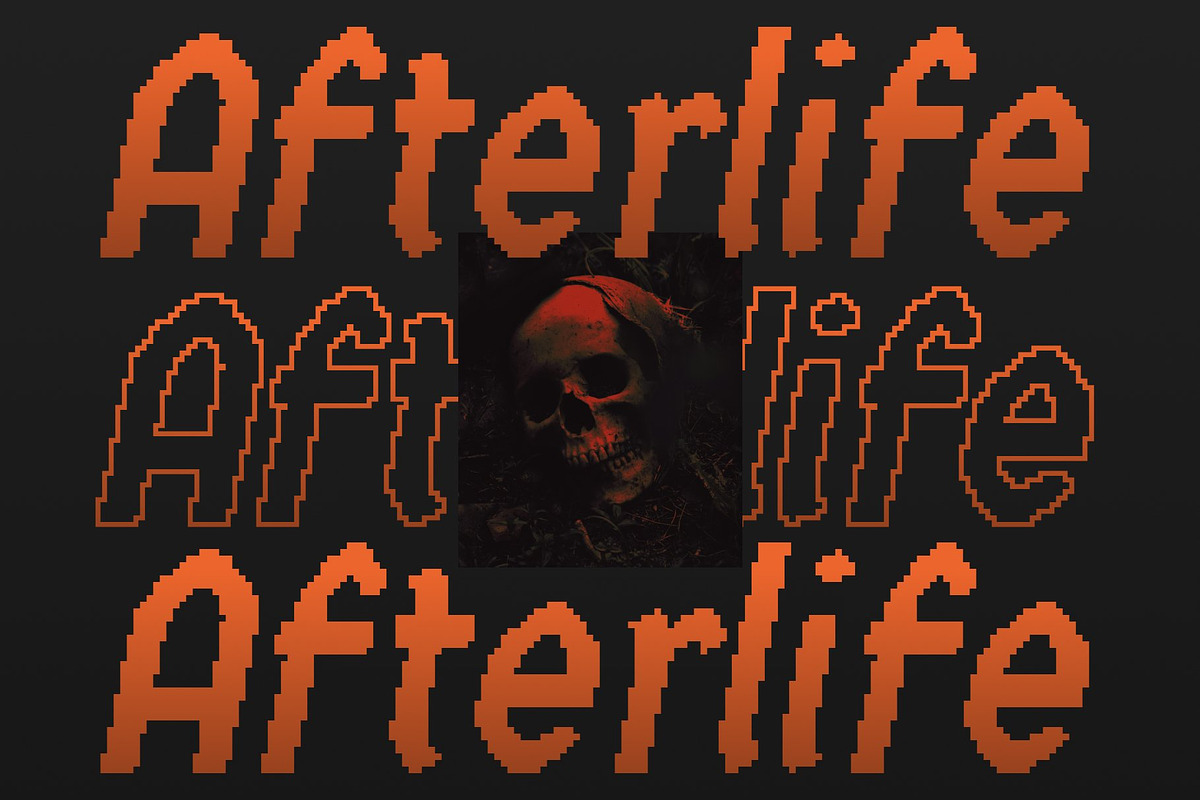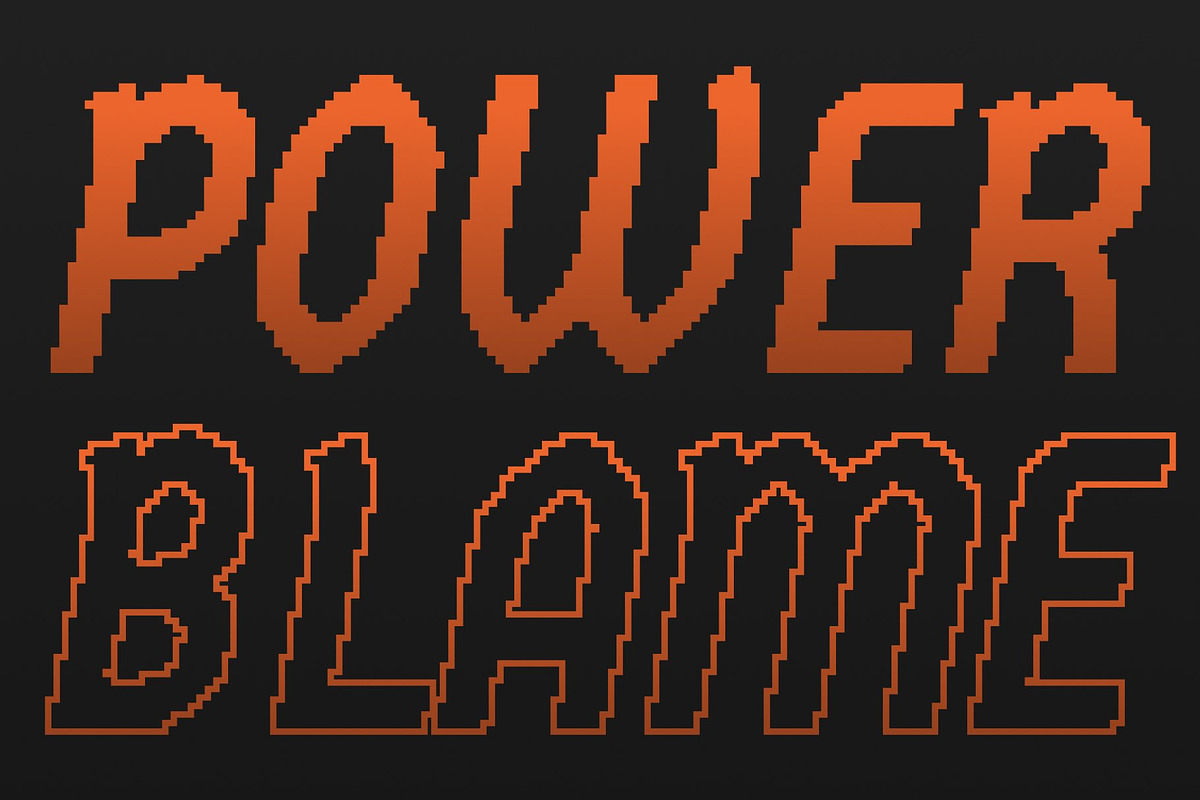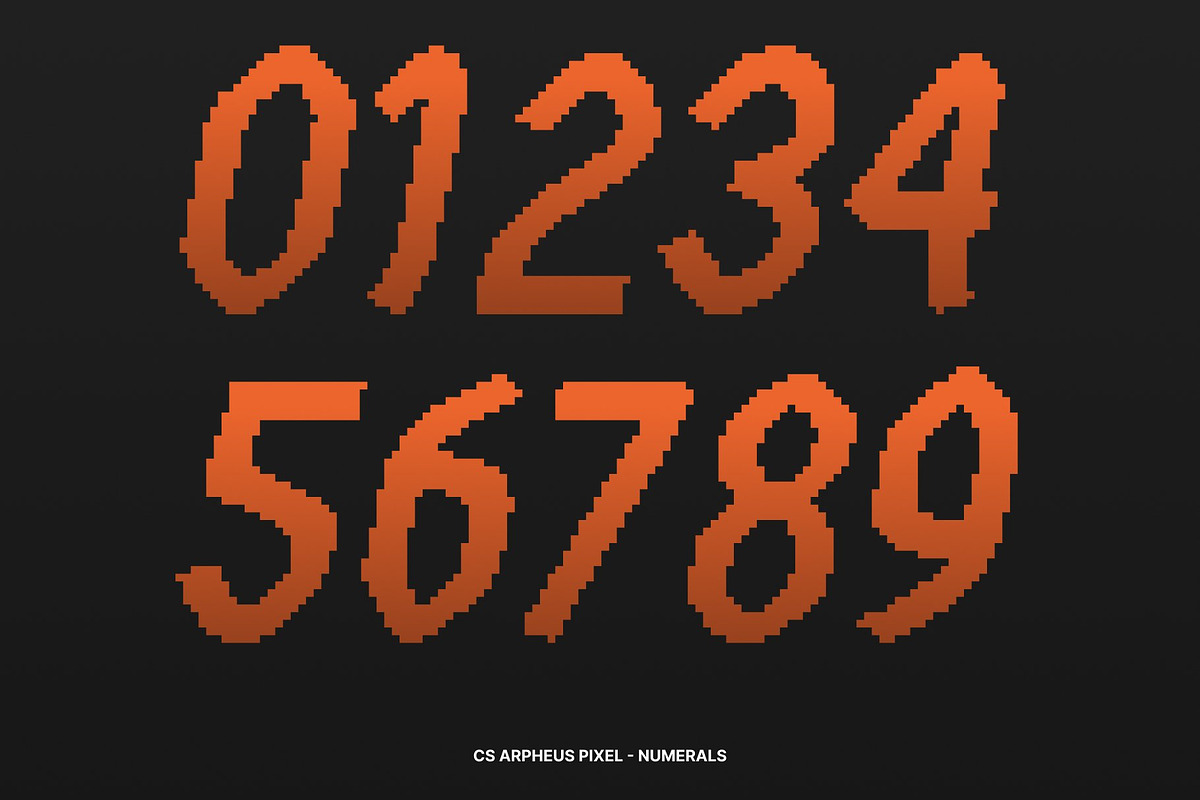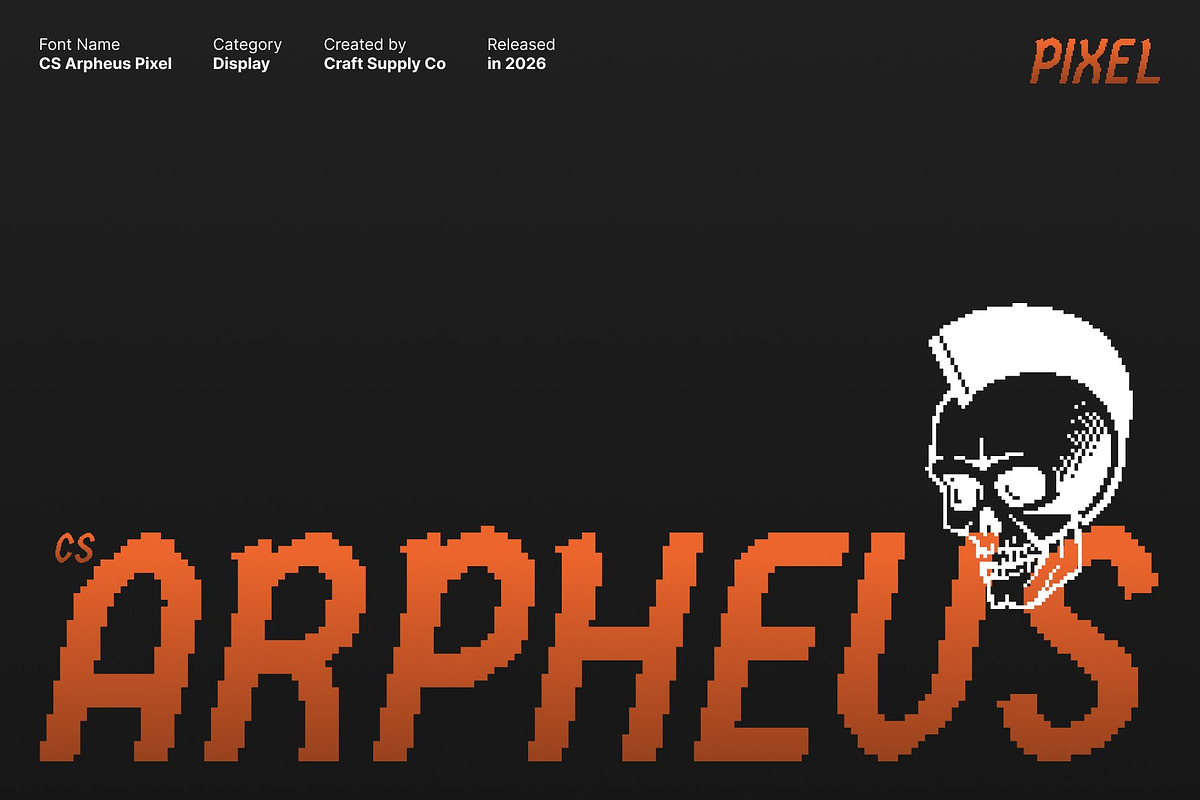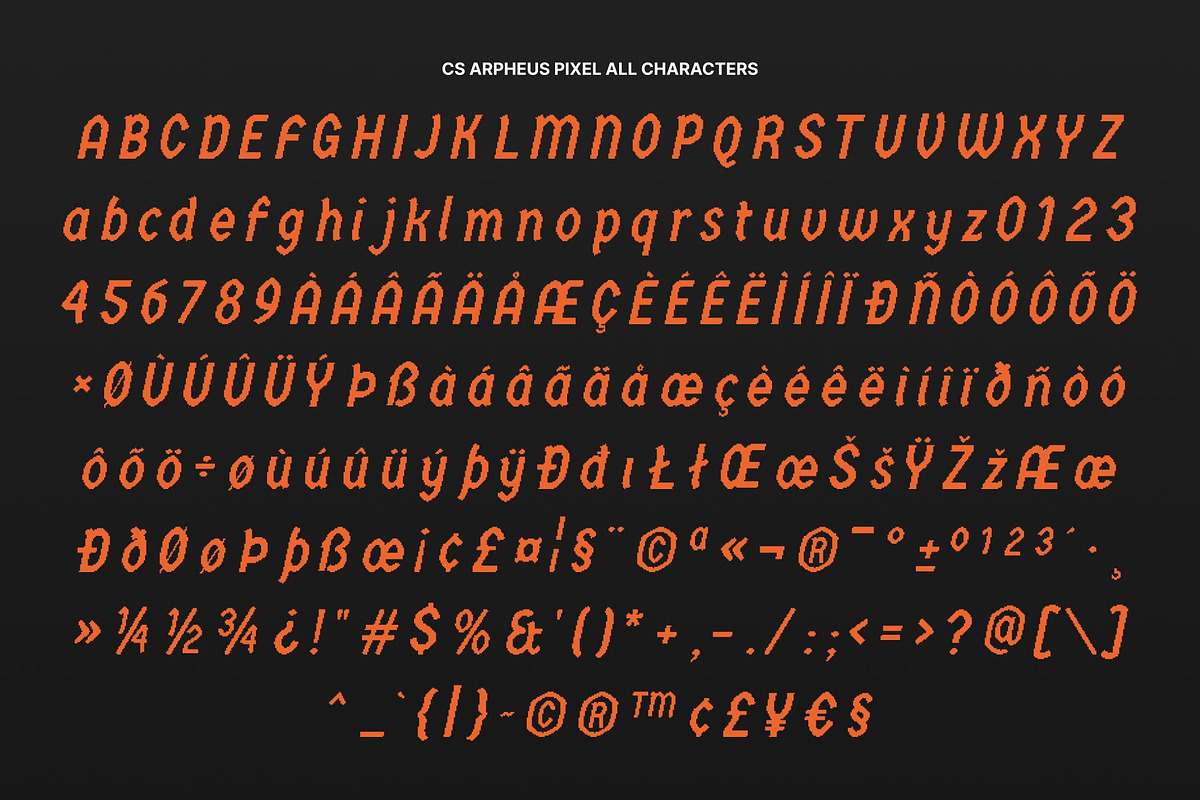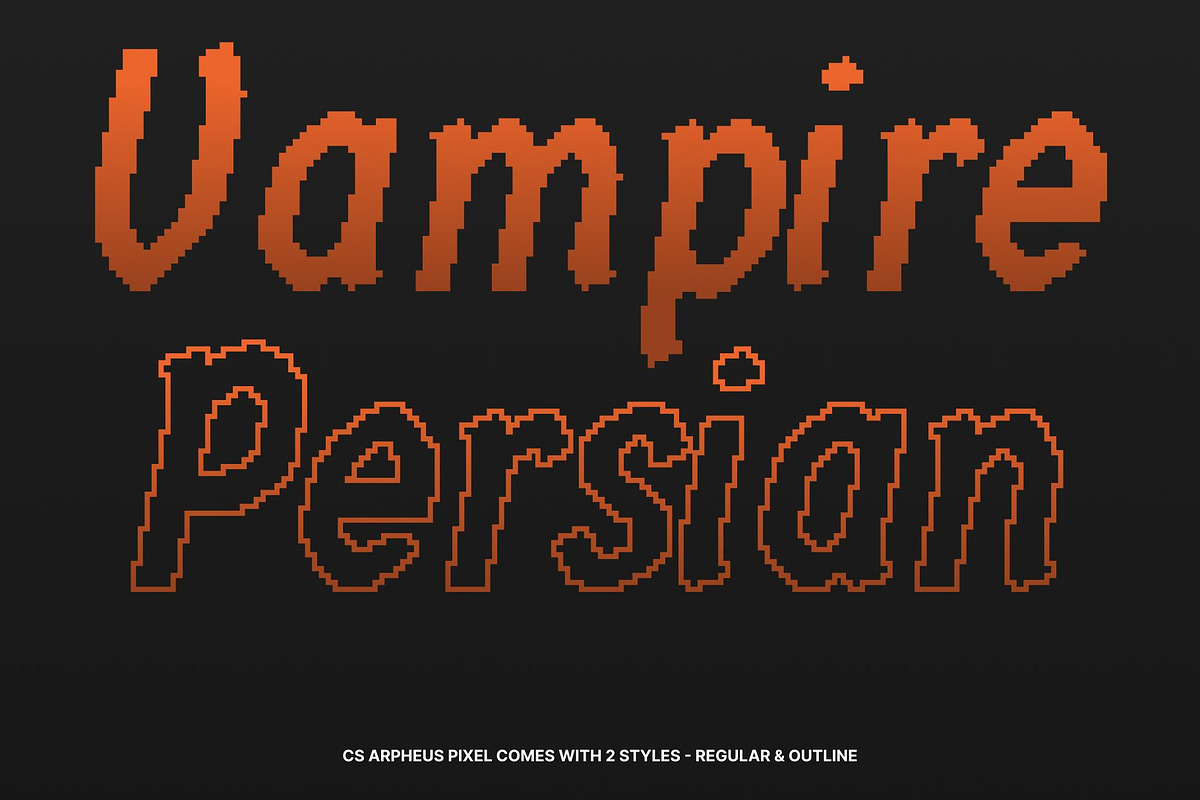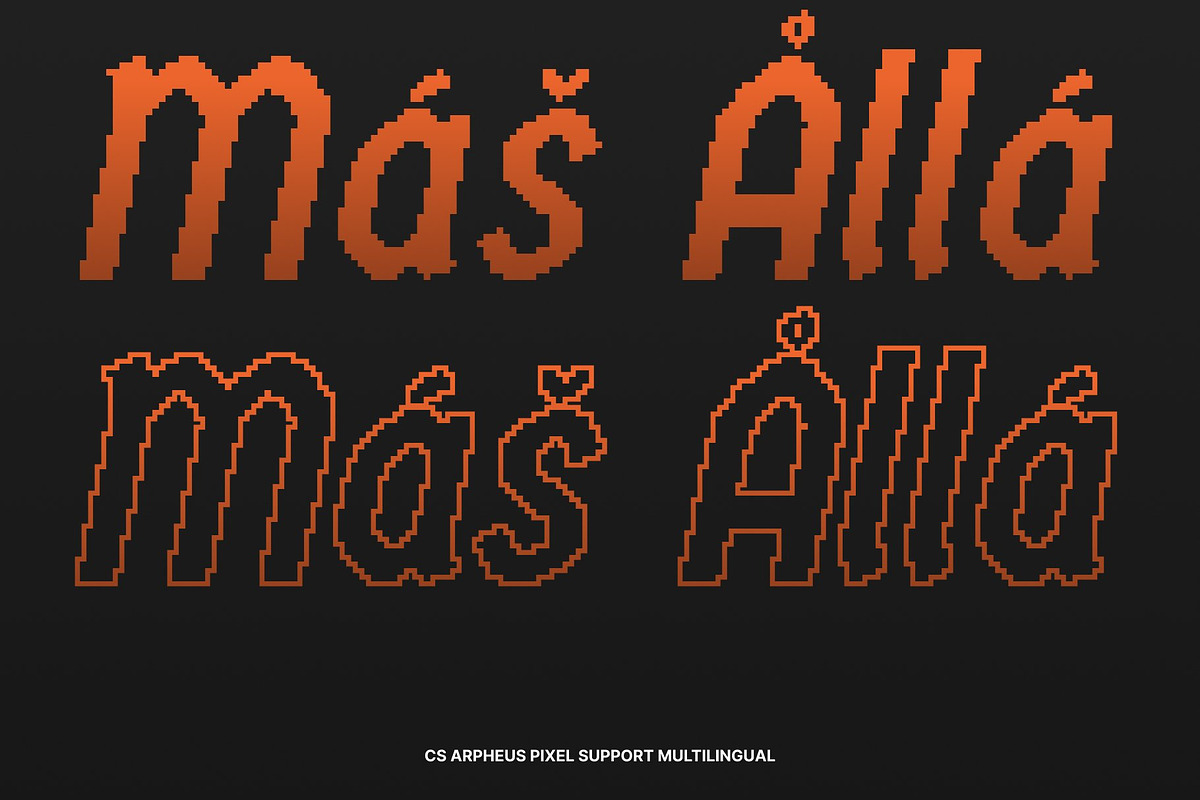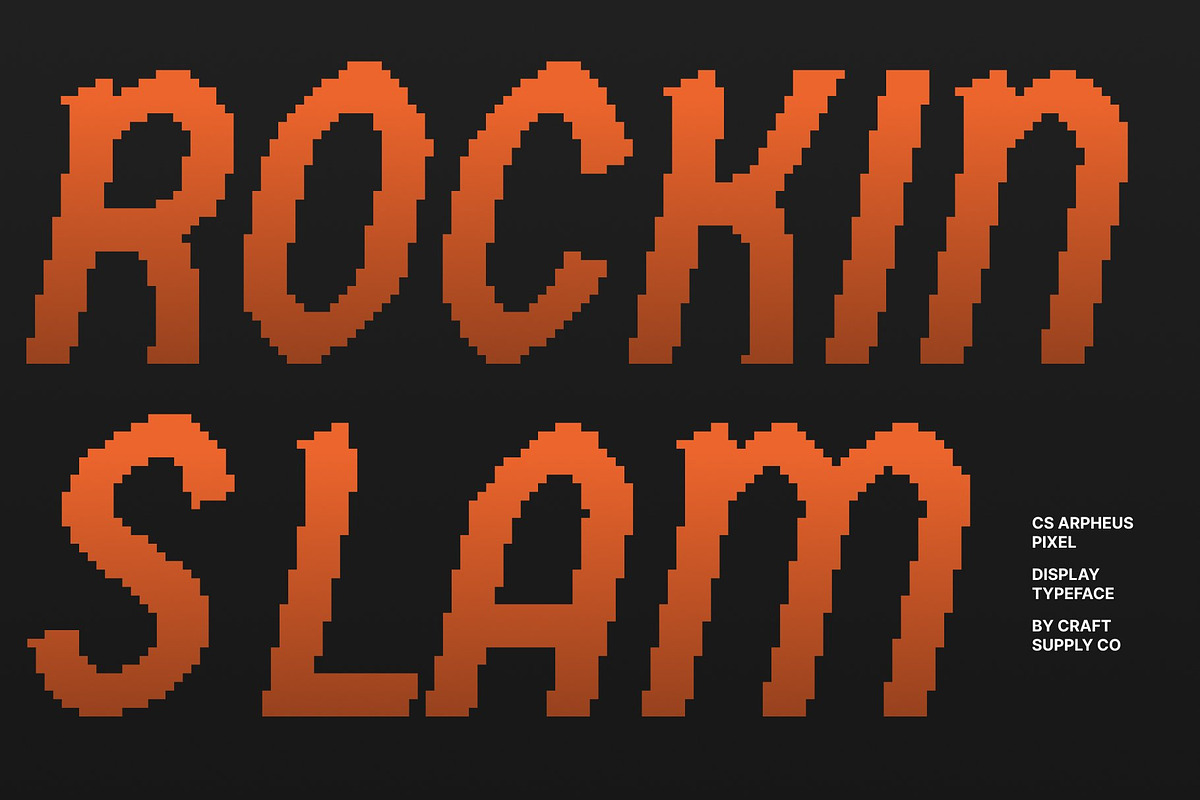
CS Arpheus Pixel
CS Arpheus Pixel – Modern Style with Bold Character
Display Sans Serif with Contemporary Pixel Strength This is a modern display sans serif font designed to make a bold statement through strong forms and distinctive pixel styling. Its stylish, striking letterforms project confidence and modernity, while the pixel construction introduces a digital edge that feels both contemporary and nostalgic. This fusion creates a powerful visual character ideal for modern, tech-inspired designs.
Stylish Letterforms with Digital Impact The refined geometry of this font is enhanced by its pixel-based details, giving each letter a sharp, expressive presence. Bold proportions and structured shapes ensure strong visibility, while the pixel aesthetic adds a unique rhythm reminiscent of retro digital screens and modern game visuals. The result is typography that feels fresh, dynamic, and unmistakably bold.
Clear Communication with Retro-Modern Energy Designed for clarity and impact, this font balances readability with personality. Its clean construction supports strong messaging, while the pixel style adds visual interest without sacrificing legibility. Whether used for large headlines or standout logos, the font delivers confident communication with a creative digital twist.
Perfect for Modern Branding, Posters, and Digital Projects Ideal for branding, posters, headlines, games, and contemporary digital designs, this font brings together modern strength and retro-inspired pixel charm. It’s a perfect choice for designers who want to express innovation, confidence, and a bold digital identity through expressive typography.